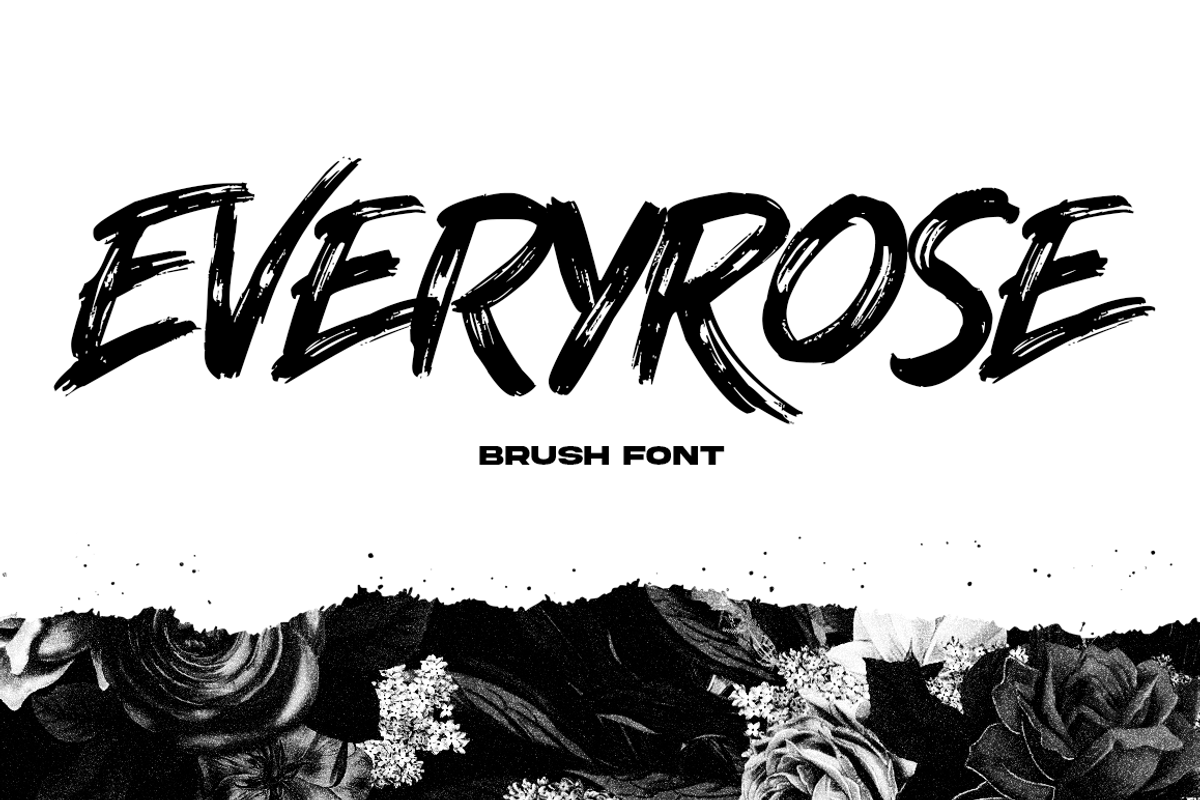
Please note that you must purchase this font for commercial use. You can download Everyrose – Brush Capitals Font for free, strictly for personal testing purposes only. Everyrose is a bold, expressive brush font featuring all uppercase characters with a hand-painted, textured feel. Designed to capture movement and emotion, Everyrose Brush Capitals Font Free Download is perfect for headlines, posters, branding, album art, apparel, social media content, and creative advertising.
Its brush stroke detail and natural flow give it an energetic, artistic edge—ideal for projects that need to stand out with personality and flair. The font includes uppercase letters, numerals, punctuation, and multilingual support, ensuring broad usability.
Whether you’re working on edgy branding or inspirational quotes, Everyrose adds bold, handcrafted impact to your typography.